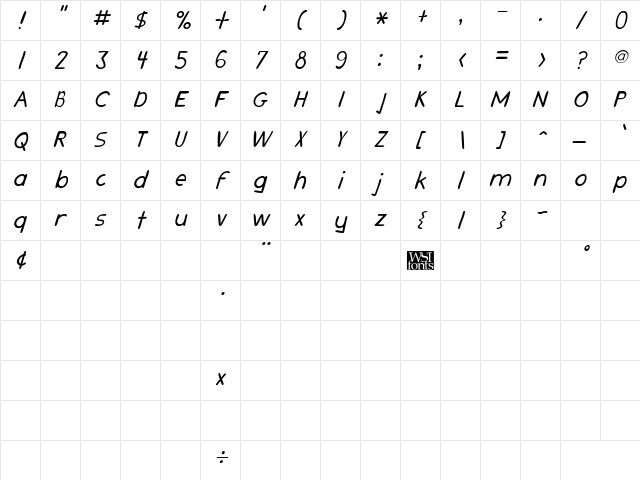
Muse Italic
Design Context for Muse
Muse is a composed and adaptable typeface that performs quietly and consistently across a wide range of design contexts. The slanted form adds forward momentum and visual energy.
Pro Tip: Use Muse for emphasis, pull quotes, and subheadings where its slanted energy can add rhythm to the layout.